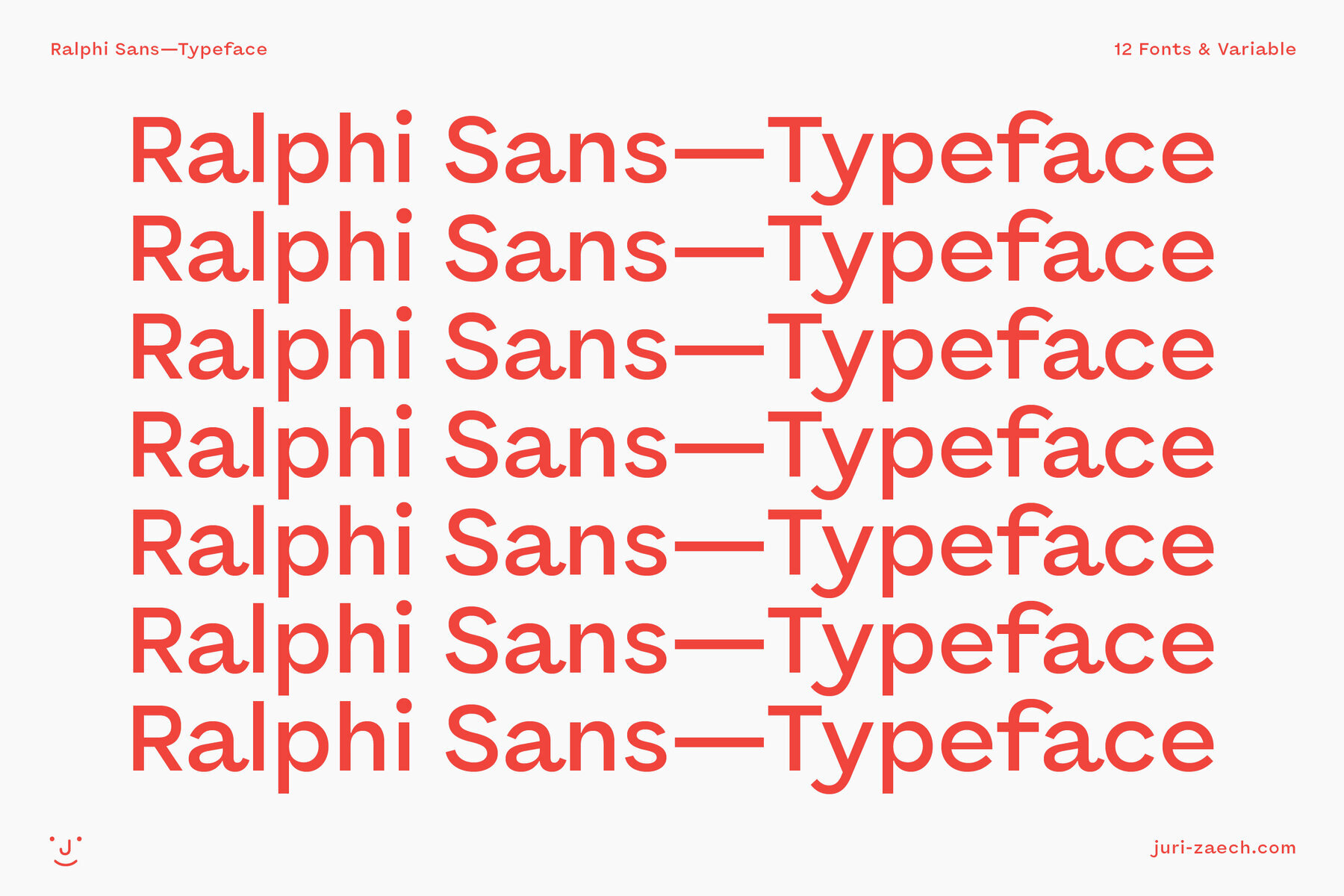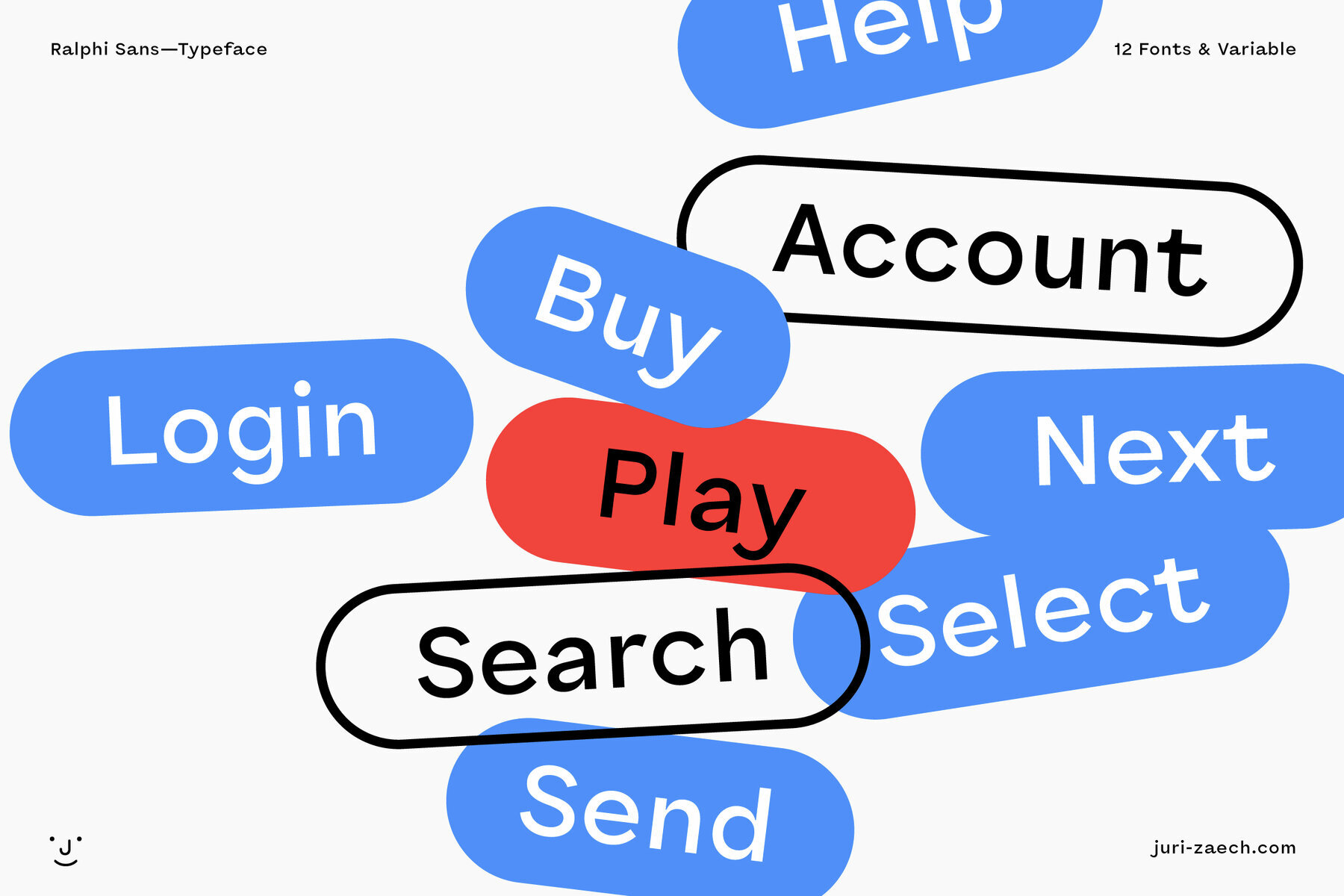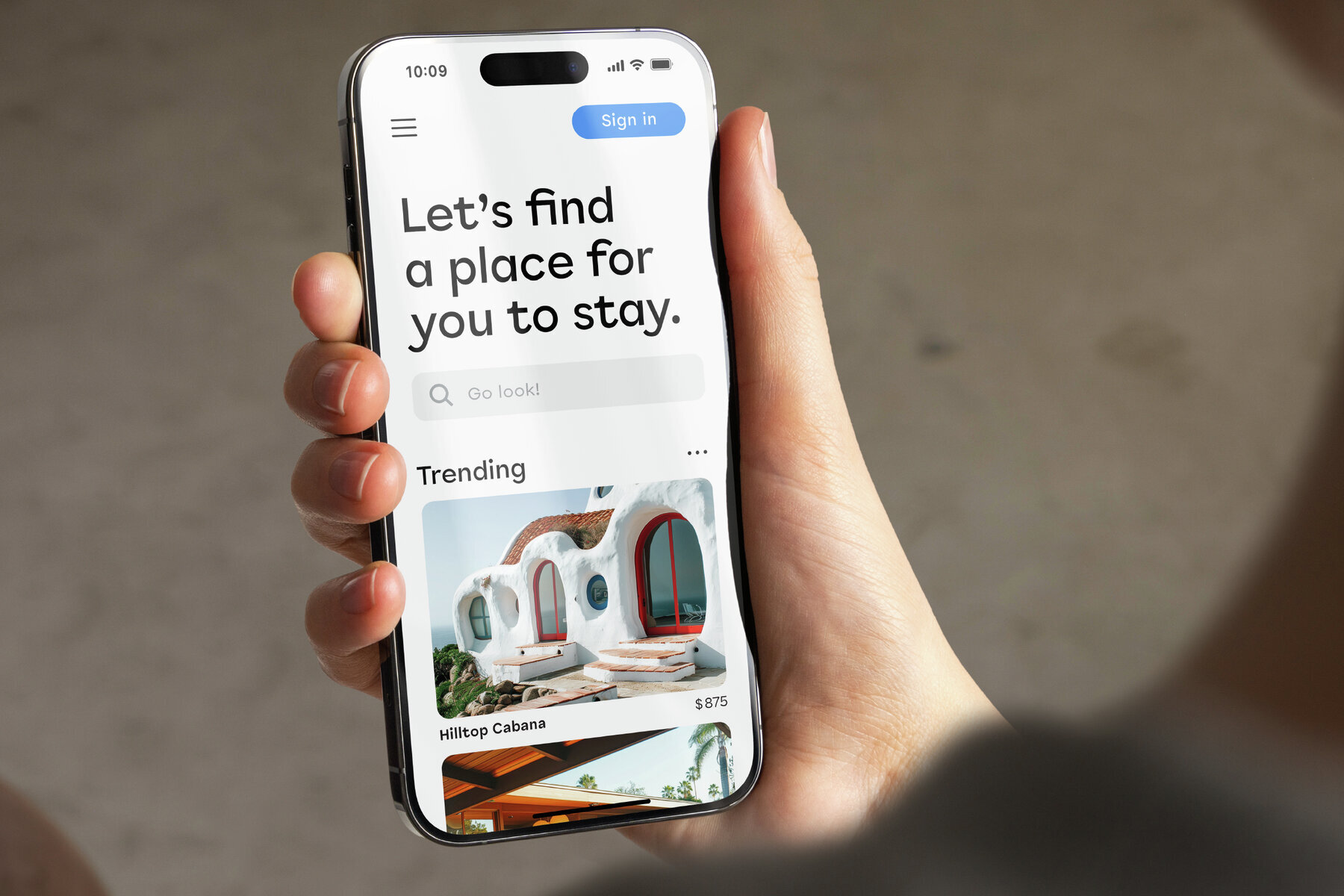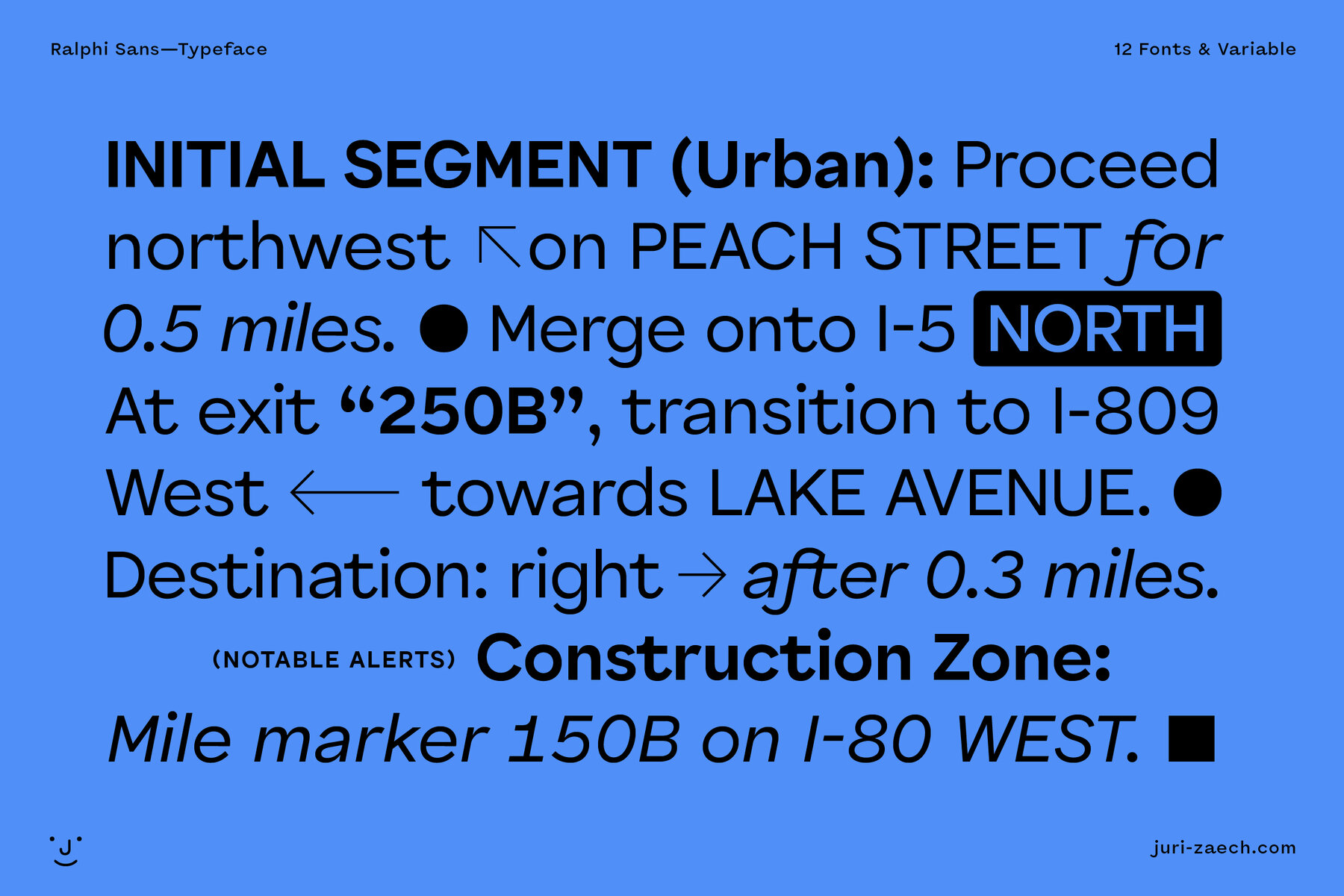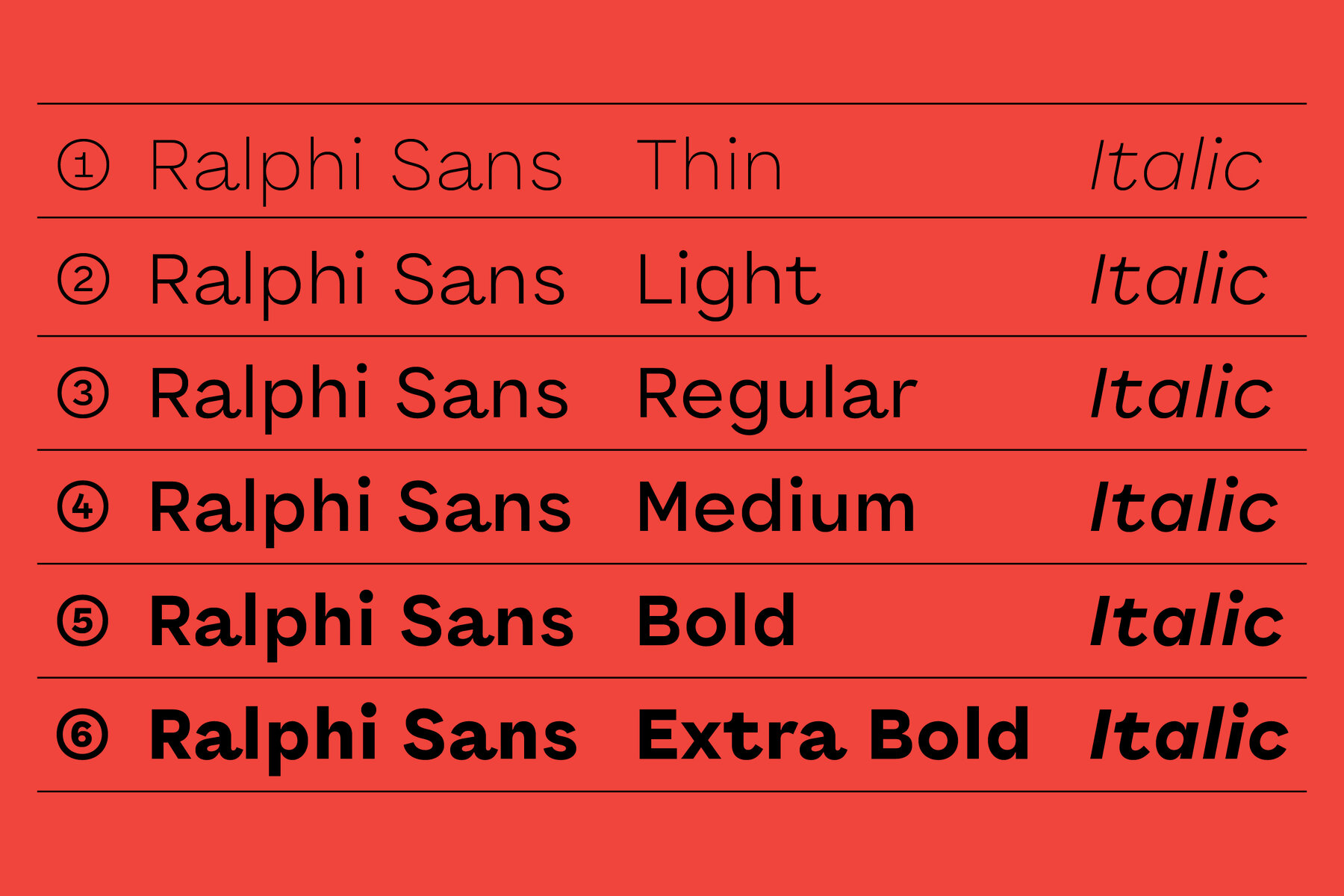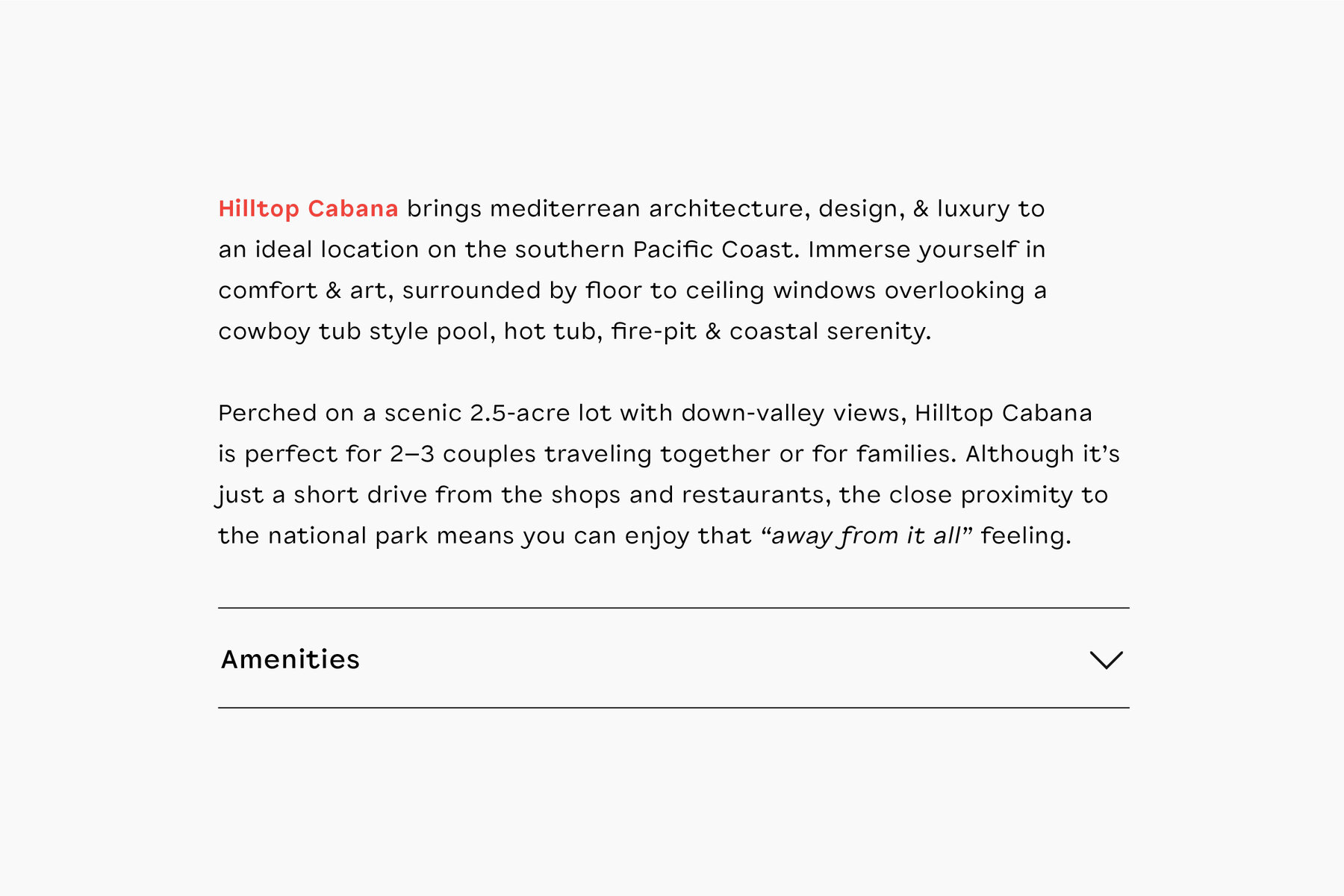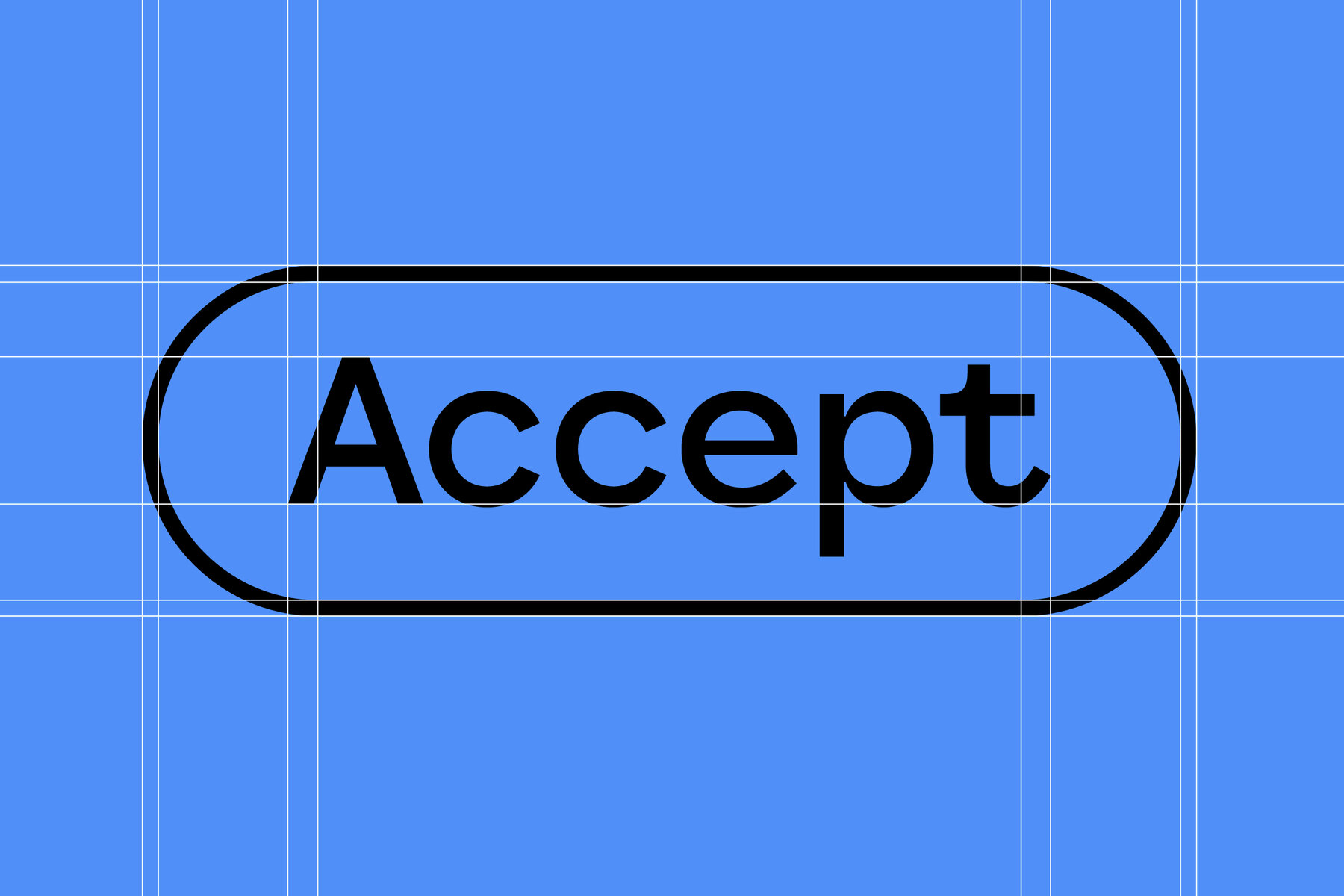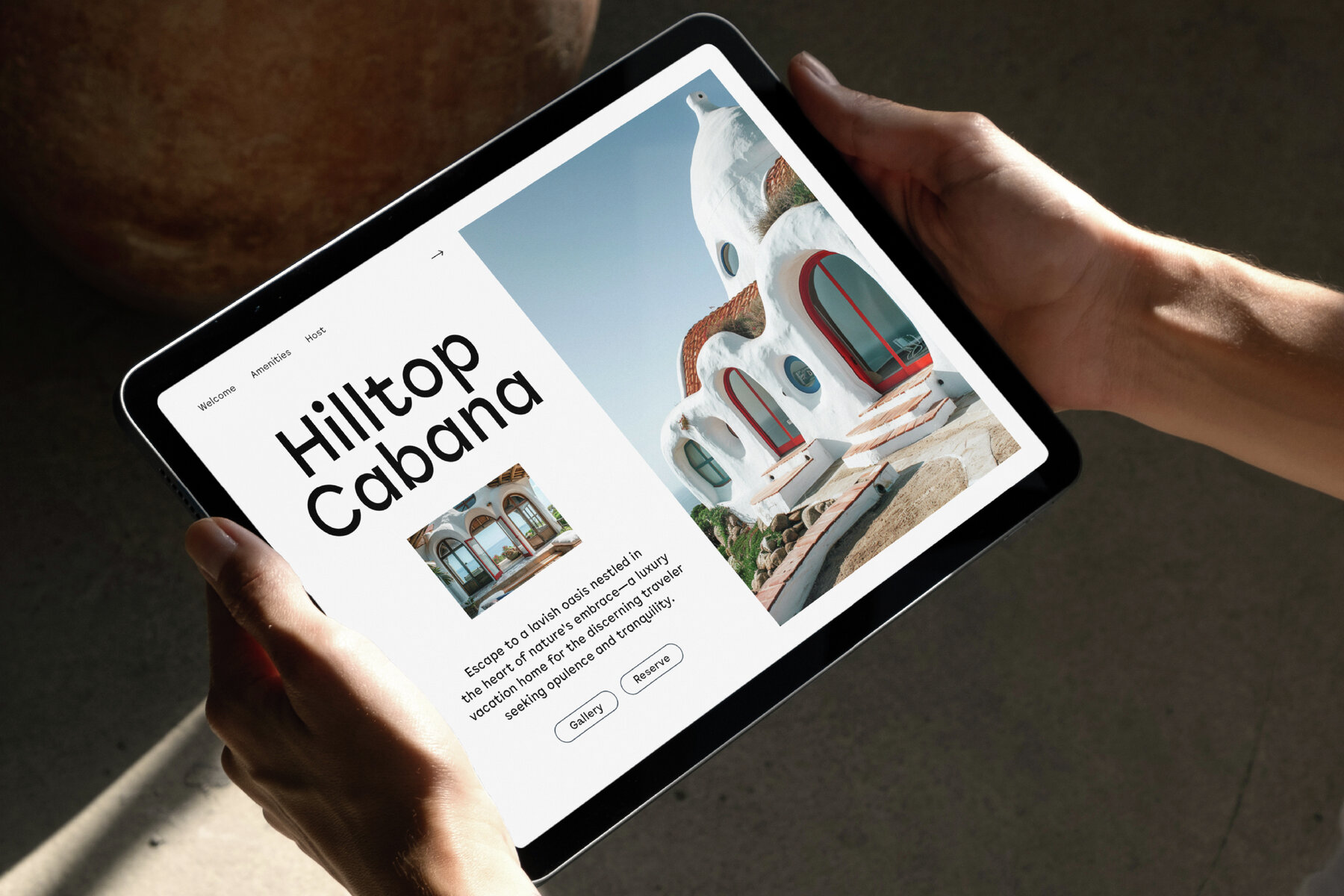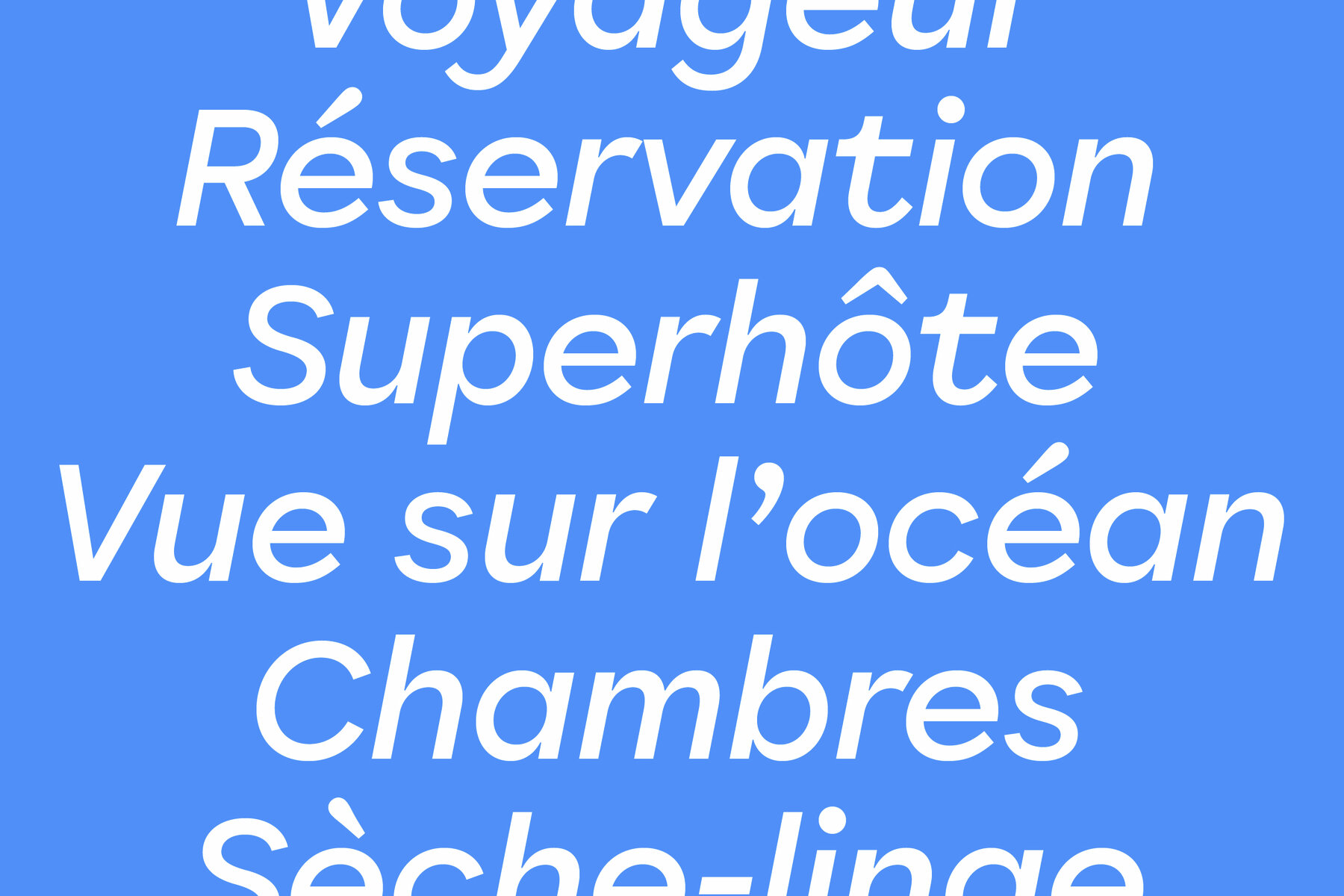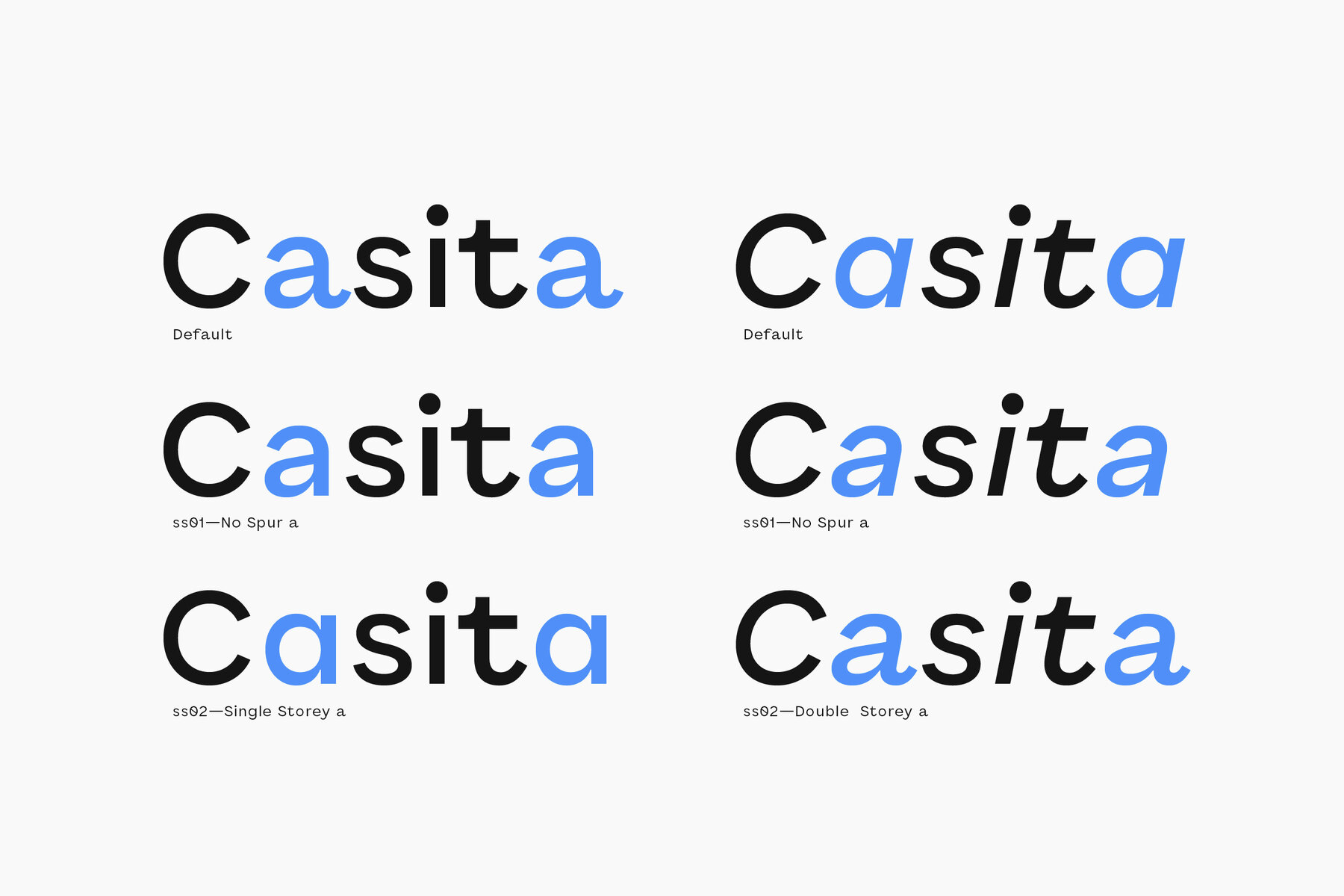
Ralphi Sans Font
Ralphi Sans is a friendly geometric typeface for use in interface design. It sets itself apart from other geometric typefaces with a design that introduces warmth and character to the otherwise austere genre. With Ralphi Sans designers can introduce a jovial note to their sleek, pixel perfect and gorgeous screen designs. The client’s business might be serious, but it’s still a welcoming startup, a useful app with a sociable tone, or a personable brand that has much to give. Generously wide and with a handful of carefully crafted characteristics Ralphi Sans is suited for screen design and branding projects that want to straddle a clean look with some personality. Below, we explore some of the design decisions that shaped Ralphi Sans, delving a bit more into the technical specifics. When type is rendered on screen joints can “clog up” due to the lower resolution. Ralphi Sans was designed with deep joints creating a thin line that connects to the stem. This way the joint stays “open” and the type is rendered crisp and clear, also and especially in small sizes. Automatic hinting is applied too, making the rendering even sharper. Ralphi Sans achieves a warmth typically absent in purely geometric typefaces. It does this with exaggerated tails and finials that lend the typeface an informal vibe. For example the y’s long tail is nothing short of jolly, yet it blends in with the overall design. Another example is the lowercase a’s finial. Normally a thing of a Clarendon, but here in a simple sans serif it just adds a bit of wit. Other characters beside the a and the y that have exaggerated features are Q, f, q and t. Through OpenType Alternates the appearance of the a can be changed to a double storey a without a finial, or simply a single storey a that naturally would appear in a geometric typeface. With this you have the option to gradually adjust the typeface’s look to best serve your project. Other OpenType features that are built into Ralphi are tabular figures, automatic fractions, case sensitive punctuation, and ligatures. Plus there are a range of symbols and icons including circled figures and arrows. Ralphi Sans’ character set covers Underwear’s Latin Plus and with it over 200 latin languages. It is carefully kerned and available in six weights with corresponding italics. The full family of 12 individual styles is also available as two variable fonts, one for uprights and one for italics.